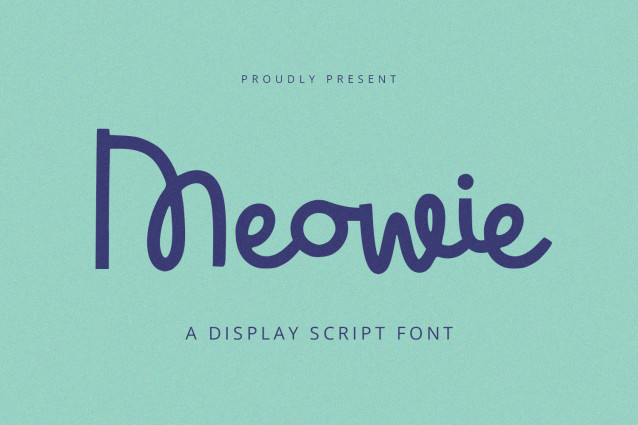
Meowie Script Font
Meowie Script Font is a display script font with modern and playful feels. It will be perfectly used for Branding, Logo Design, Lettering, Logotype, Clothing, Poster, magazine, packaging, posters, shopping bags, t-shirts, book covers, photography, special events and other design project.